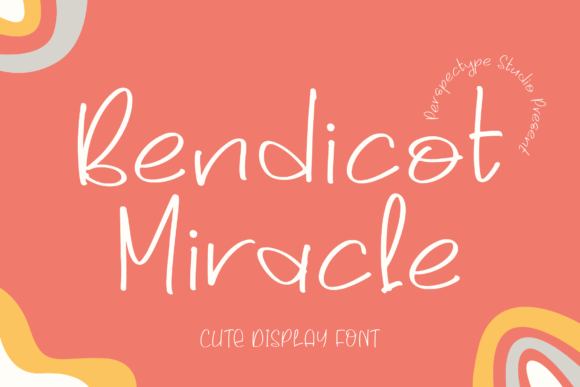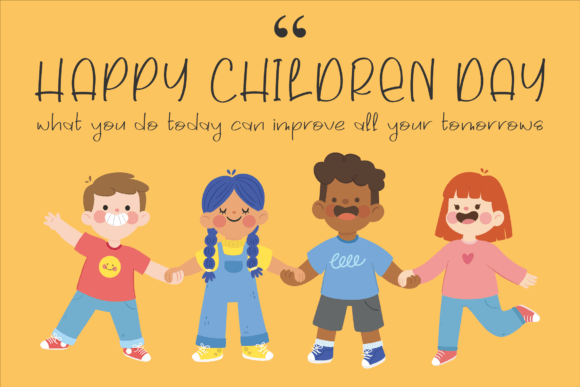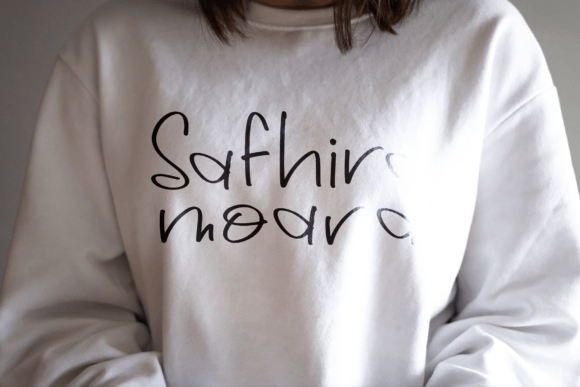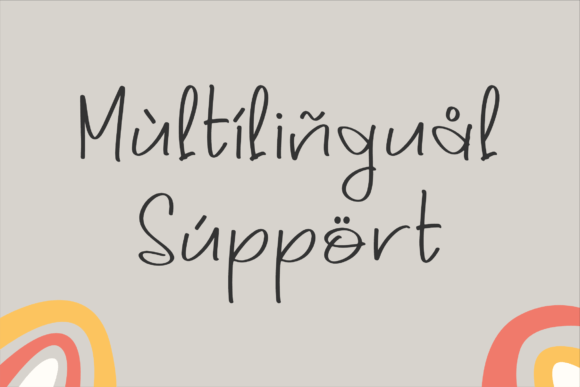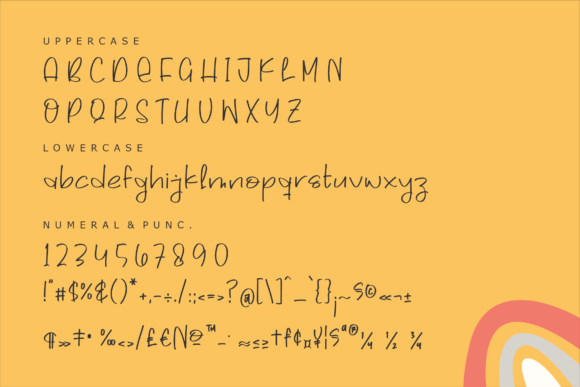
About Bendicot Miracle Font
Bendicot Miracle fon is a beautiful script typeface designed to bring elegance and versatility to many design projects. This font adds a warm, handcrafted feel that makes your work stand out. Whether you use it for logos, branding, or homeware designs, Bendicot Miracle fon enhances your creations with sophistication and charm.
Elegant Style of Bendicot Miracle Font
The true appeal of Bendicot Miracle fon lies in its smooth, flowing strokes that mimic natural handwriting. It adds a personal touch to product packaging, such as mugs or posters, where a handcrafted look makes a difference. The font’s design balances elegance with readability, making it perfect for detailed creative work.
Versatile Uses of Bendicot Miracle Fon
Designers love the flexibility of Bendicot Miracle fon. It fits a wide variety of projects including:
Shopping bags and t-shirt designs
Book covers and editorial layouts
Name cards and invitation cards
Greeting cards and product labels
Photography watermarks and branding
Additionally, its style suits both casual and formal designs, adapting effortlessly to your needs.
Add Warmth with Bendicot Miracle Fon
This font is ideal when you want to add warmth and personality. From special event invitations to marketing materials, Bendicot Miracle fon transforms your designs into memorable experiences. Its charming script style gives your work a welcoming and elegant atmosphere.
Why Choose Bendicot Miracle Font for Your Projects?
Offers a unique, elegant handwritten style
Perfect for a broad range of design applications
Adds a handcrafted and personal touch
Works well in print and digital formats
Enhances warmth and sophistication
Final Thoughts on Bendicot Miracle Font
In summary, Bendicot Miracle fon is a highly versatile and elegant handwritten script. It brings a personal and refined touch to logos, branding, packaging, and special events. Add this font to your collection to elevate your creative projects with timeless charm and style.